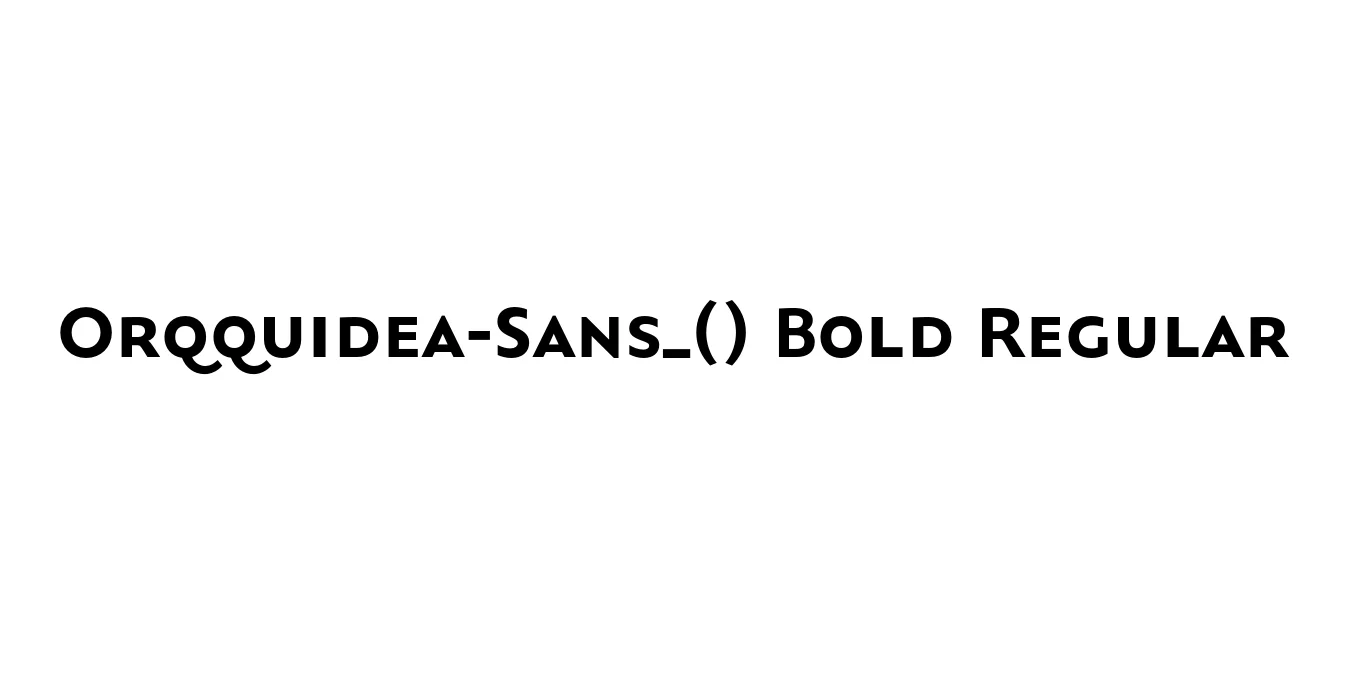
Orqquidea-Sans_() Bold Regular
Designed by Saji Studio
Orqquidea Sans Bold Regular is a contemporary typeface designed with a focus on geometric precision and modern elegance. It features a clean, high-contrast aesthetic that bridges the gap between classic humanist structures and modern digital clarity. The font's balanced proportions and open counters ensure high legibility across various screen sizes and print formats, making it a versatile tool for professional designers.
Developed as part of a wider font family, the Bold Regular weight specifically emphasizes strength and visual impact. It is characterized by its smooth transitions and subtle terminals, which provide a sophisticated yet approachable character. Over the years, it has become a go-to choice for branding projects and user interfaces that require a sleek, minimalist look without sacrificing personality.
Orqquidea-Sans_() Bold Regular Best Uses
Perfect for creating strong, memorable logos and corporate identities.
Ideal for high-impact headlines and prominent call-to-action buttons.
Excellent for digital banners, social media graphics, and promotional posters.
Highly effective for magazine mastheads and bold section titles.